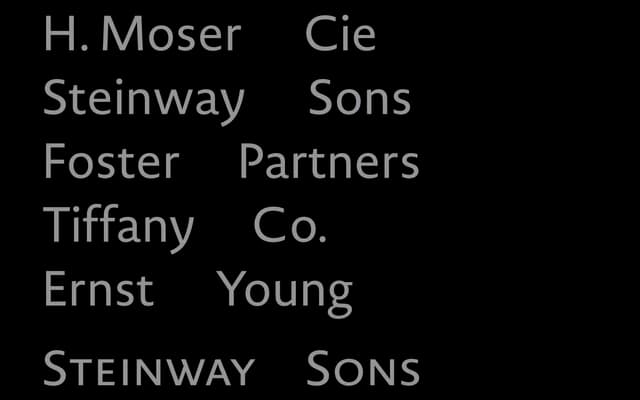
Novel Sans
A humanist sans-serif from Atlas Fonts, part of the broader Novel typeface family.
Novel Sans is Atlas Fonts' sans-serif entry within their Novel family, drawing on humanist proportions suited to text and editorial work. The page content retrieved was minimal, limiting detailed assessment of its full weight range and feature set. Based on the foundry's broader Novel family, it is likely designed for extended reading with warm, calligraphically influenced letterforms.
The name and foundry context suggest a humanist sans-serif; the 'Novel' family from Atlas Fonts is known for its humanist warmth and calligraphic underpinnings, placing it clearly in the humanist sans category.